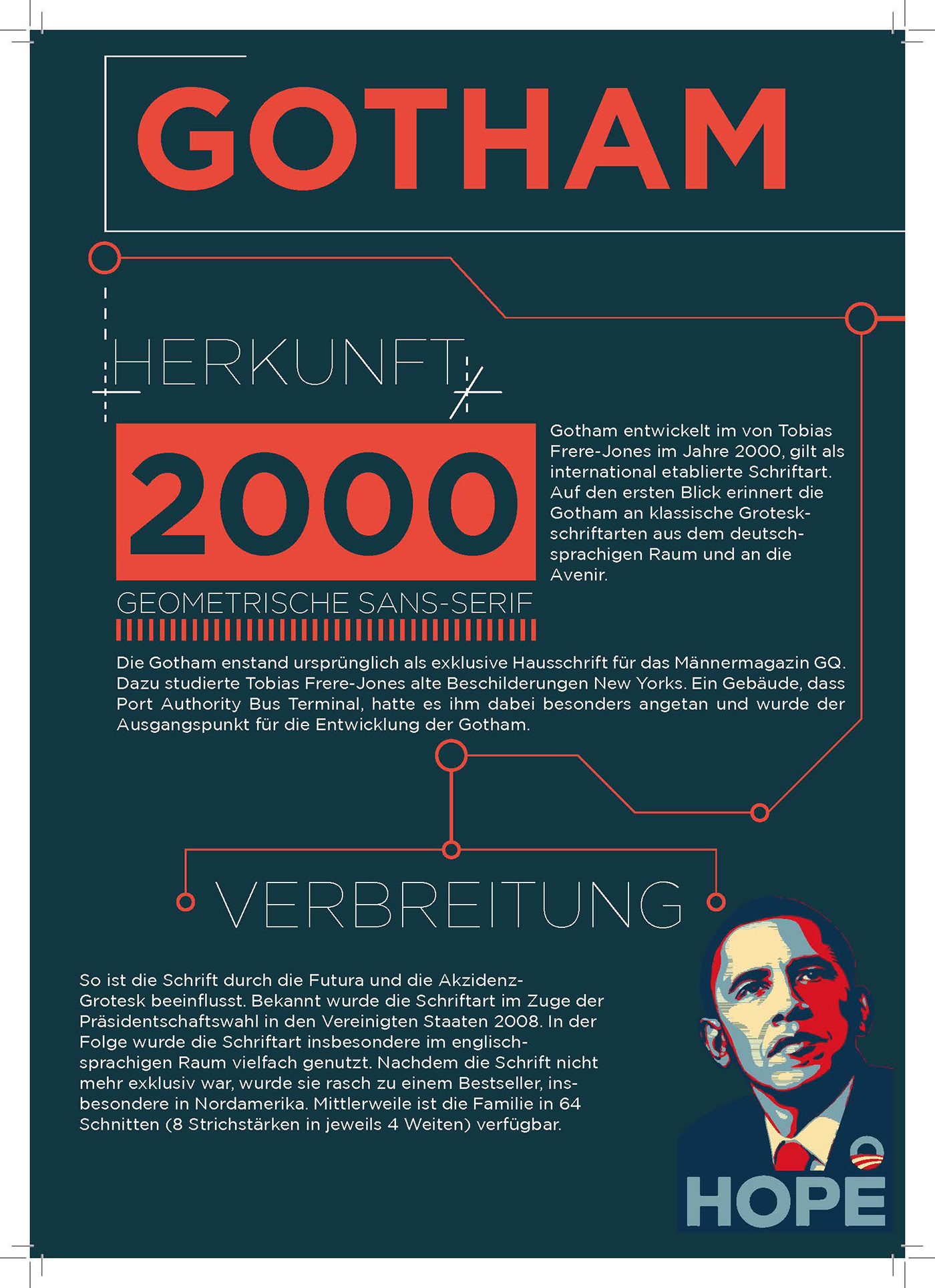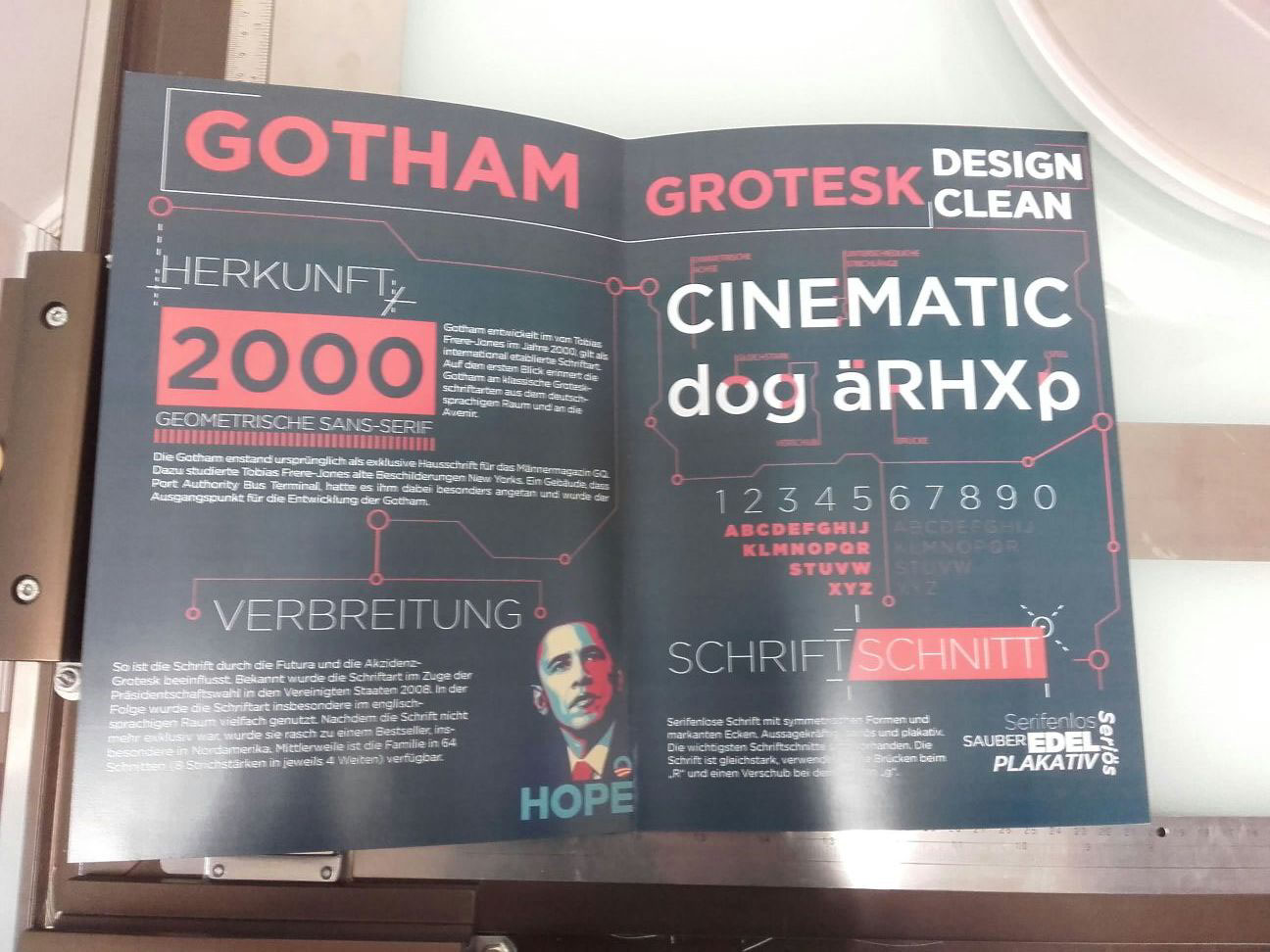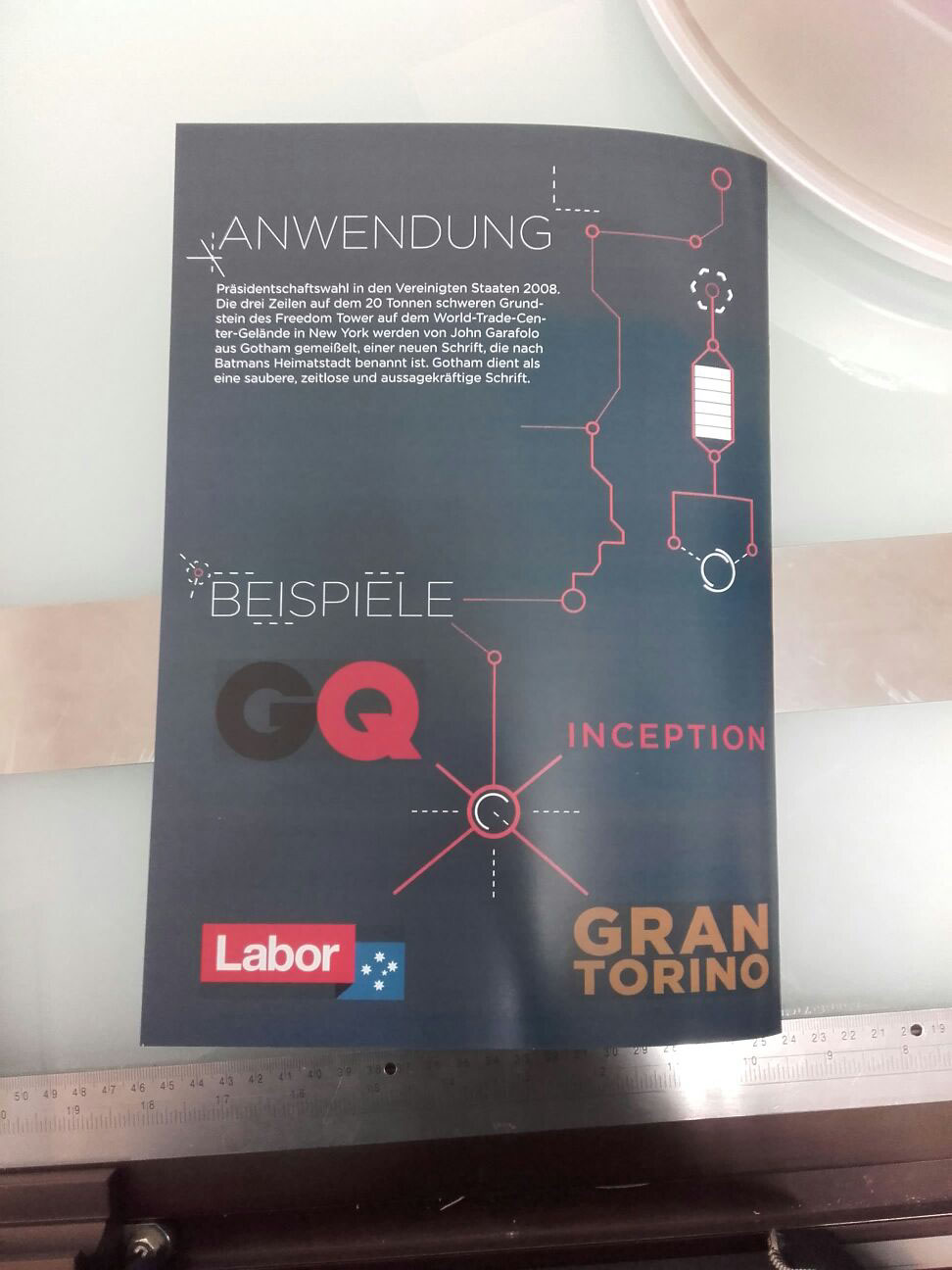
Gotham rounded is spaced and kerned to perform in most circumstances without the need for manual intervention. Because we must take into account the way. Hamlin is inspired by classic geometric fonts similar to gotham.
Hamlin Is Inspired By Classic Geometric Fonts Similar To Gotham.
New York Is Teeming With Such Letters, Handmade Sans Serifs That Share A Common Underlying Structure, An Engineer’s Idea Of “Basic Lettering” That Transcends Both The.
This tremendous typeface was designed in 2010 by tobias frere. I was instructed to use a font called gotham book for my body text. This stunning typeface is perfect for web designing.